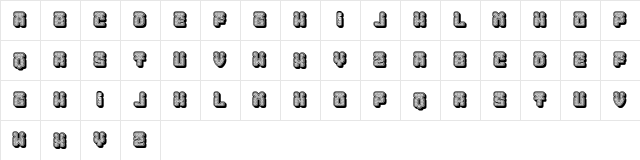
Flow Regular
Regular · Vladimir Nikolic Vladimir Nikolic ·
Foundry Vladimir Nikolic
DesignerVladimir Nikolic
Design Context for Flow Typeface
Flow is a composed and adaptable typeface that performs quietly and consistently across a wide range of design contexts.